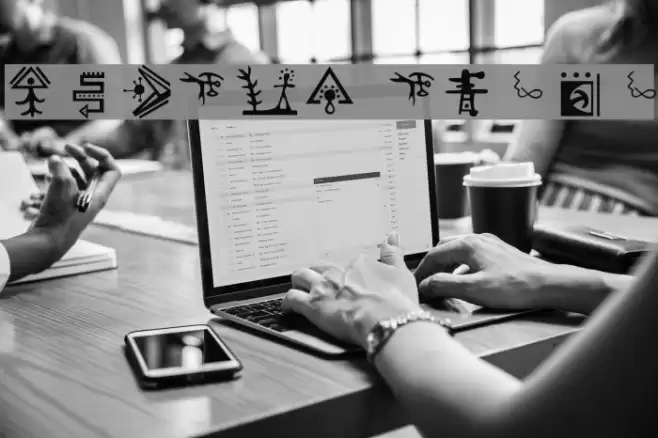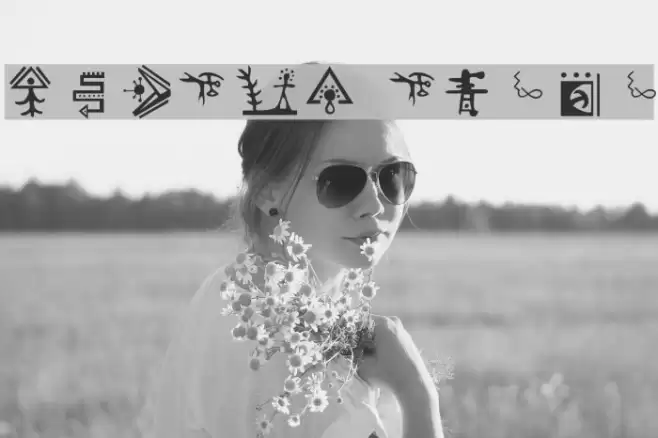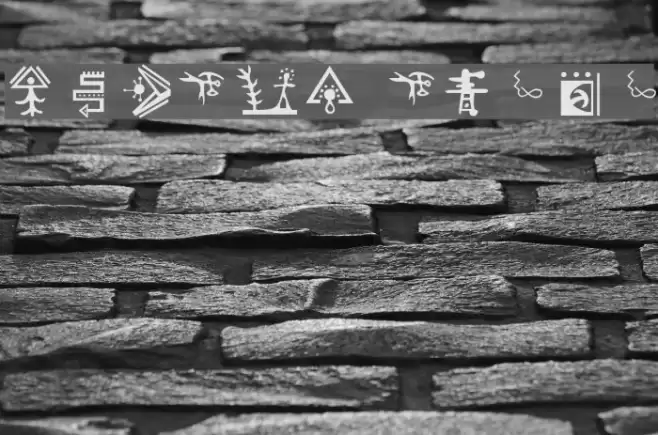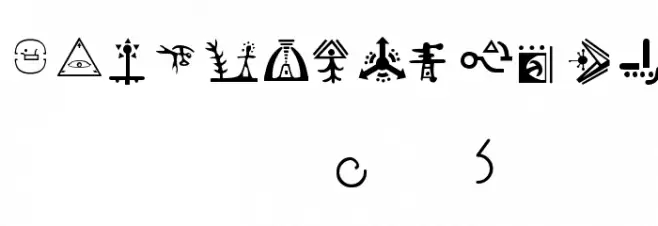
Golden Disks Font
Golden Disks Description
A decorative and symbolic typeface featuring unique pictograms and abstract glyphs, each character resembling an ancient or extraterrestrial symbol rather than traditional Latin letters or numerals.
Highly decorative font with pictographic, symbolic glyphs from Uncategorized fonts.
- Proposed Projects: Fantasy games, sci-fi projects, alien language simulations, puzzles, escape rooms, themed posters.
- Overall Style: Decorative, Mysterious, Symbolic
- Use Case: Logos, Posters, Game UI, Themed Events